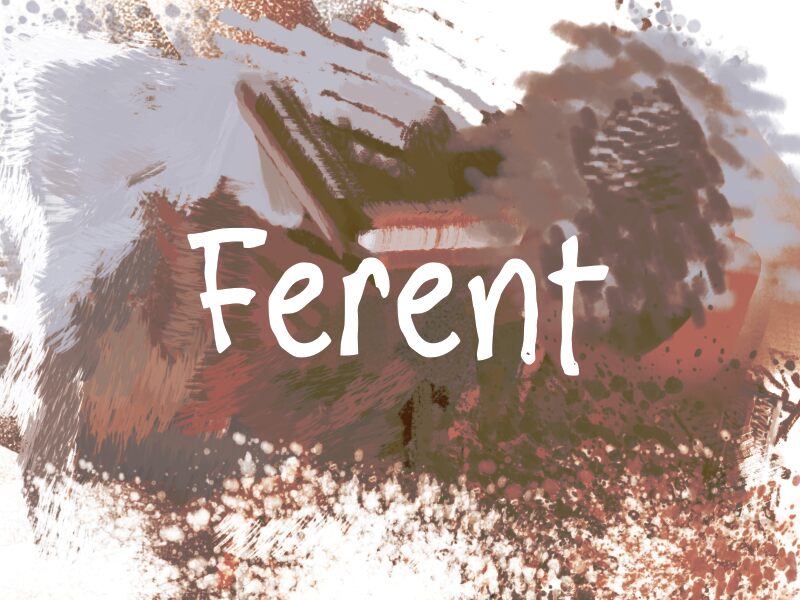
Ferent
Ferent, designed by wep, is a captivating display font with a semi-light weight and semi-condensed width.
Its elegant curves and unique letterforms make it ideal for luxury brand logos, fashion magazines, and high-end product packaging. The modern yet refined style of Ferent adds sophistication to wedding invitations, while its legibility makes it suitable for editorial headlines in lifestyle magazines. With its distinctive character, Ferent also complements artistic posters and album covers, enhancing the visual impact of any creative project.